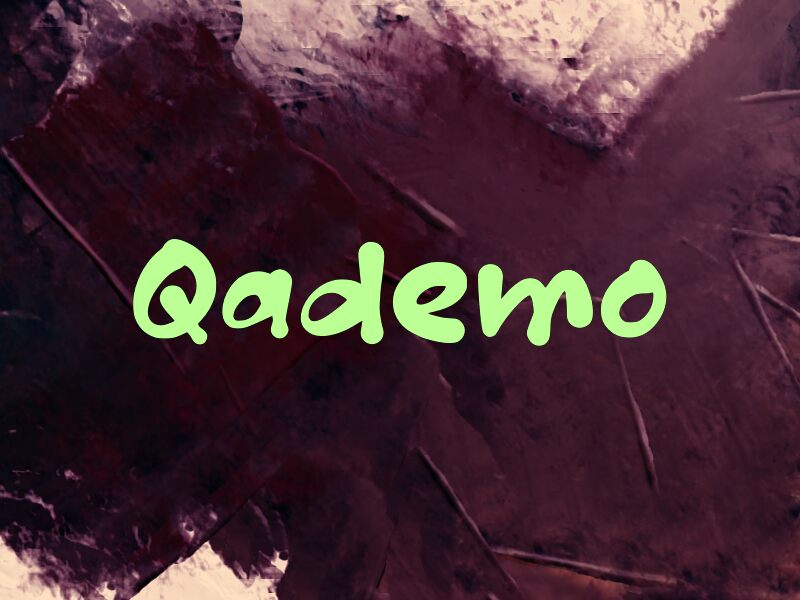
Qademo font, created by wep, is a free casual cartoon font with an approachable aesthetic. This font is specifically designed to standout in its unique style and charm. Hand-lettered with smooth contours, it captures an original and authentic feel.
This font's versatile style can fit a wide range of applications in both digital and print platforms. Qademo particularly shines in signage, logos, branding or identity style development. Other suitable options include magazine covers, posters, flyers, brochures, packaging, t-shirts, and mugs.
Qademo is a stunning free font designed to elevate your projects with its unique style and versatility. This font combines modern aesthetics with classic elements, making it suitable for a wide range of applications, from branding and advertising to digital media and print.
With its clean lines and easy readability, Qademo is perfect for both headlines and body text. Whether you're creating a striking logo, an eye-catching poster, or an elegant invitation, this free font will enhance your design and make it stand out.